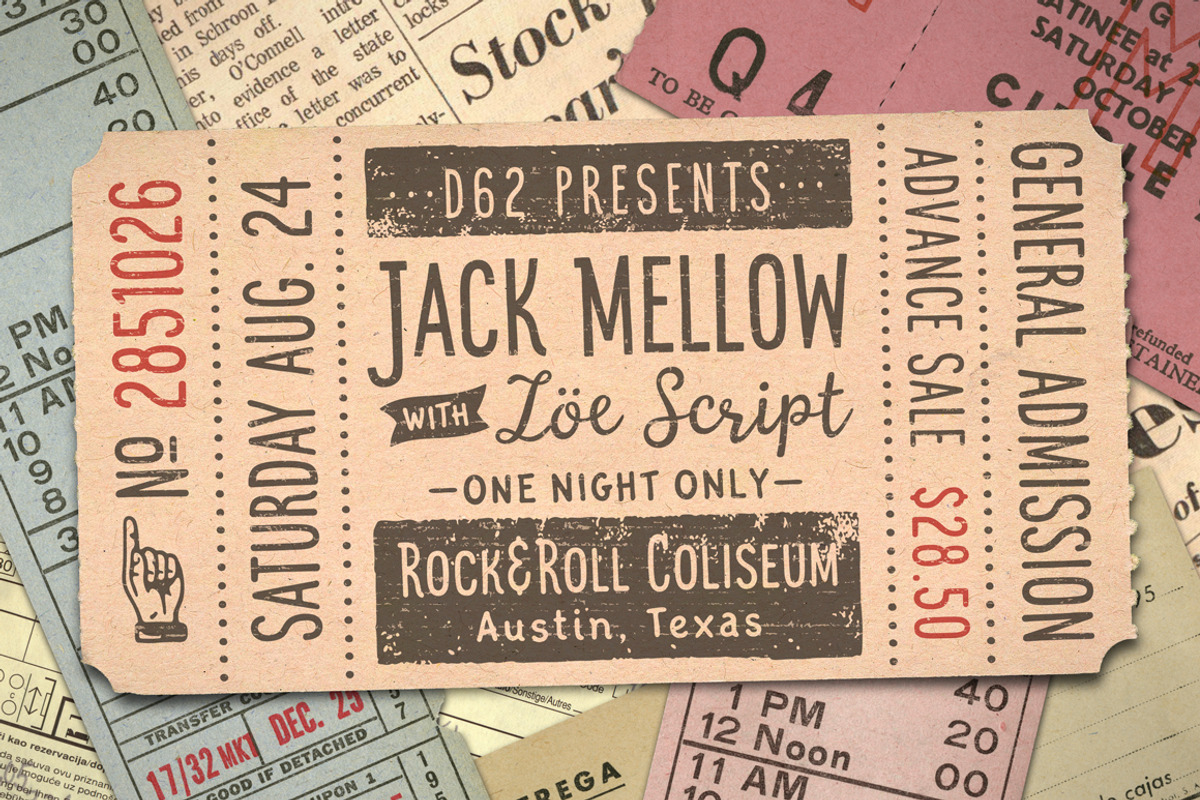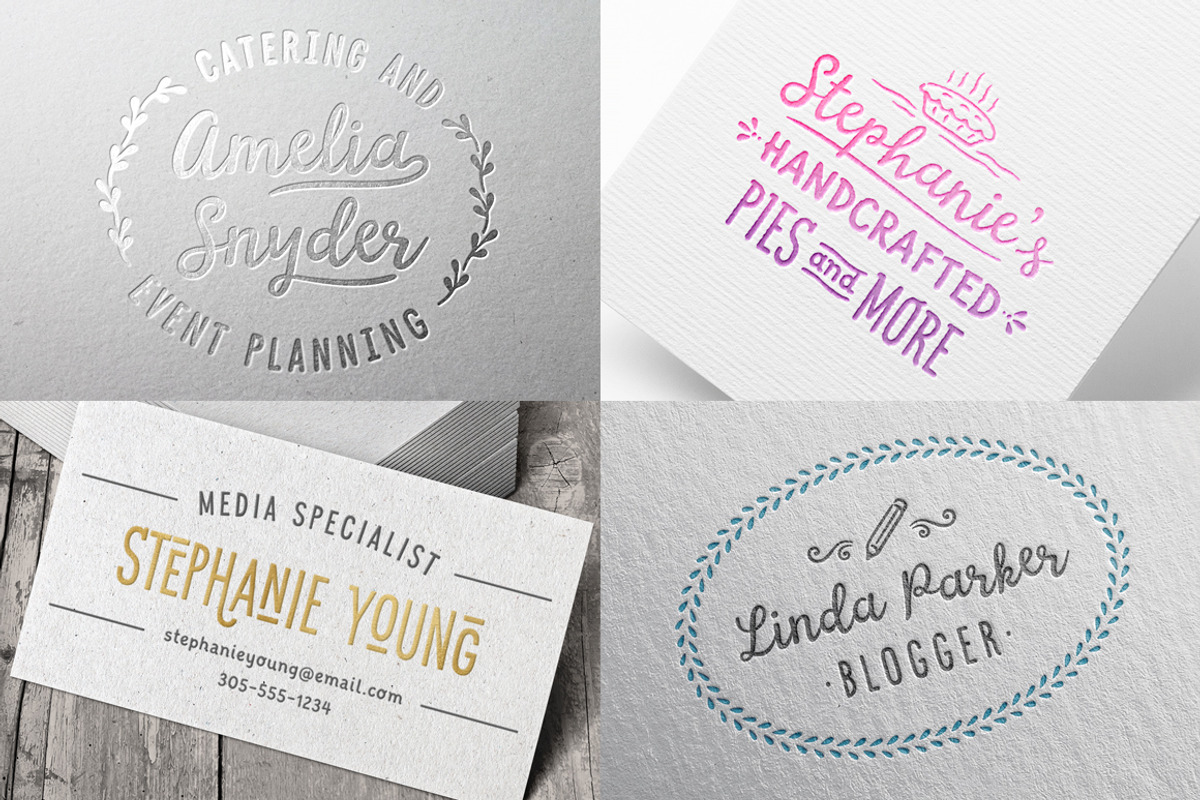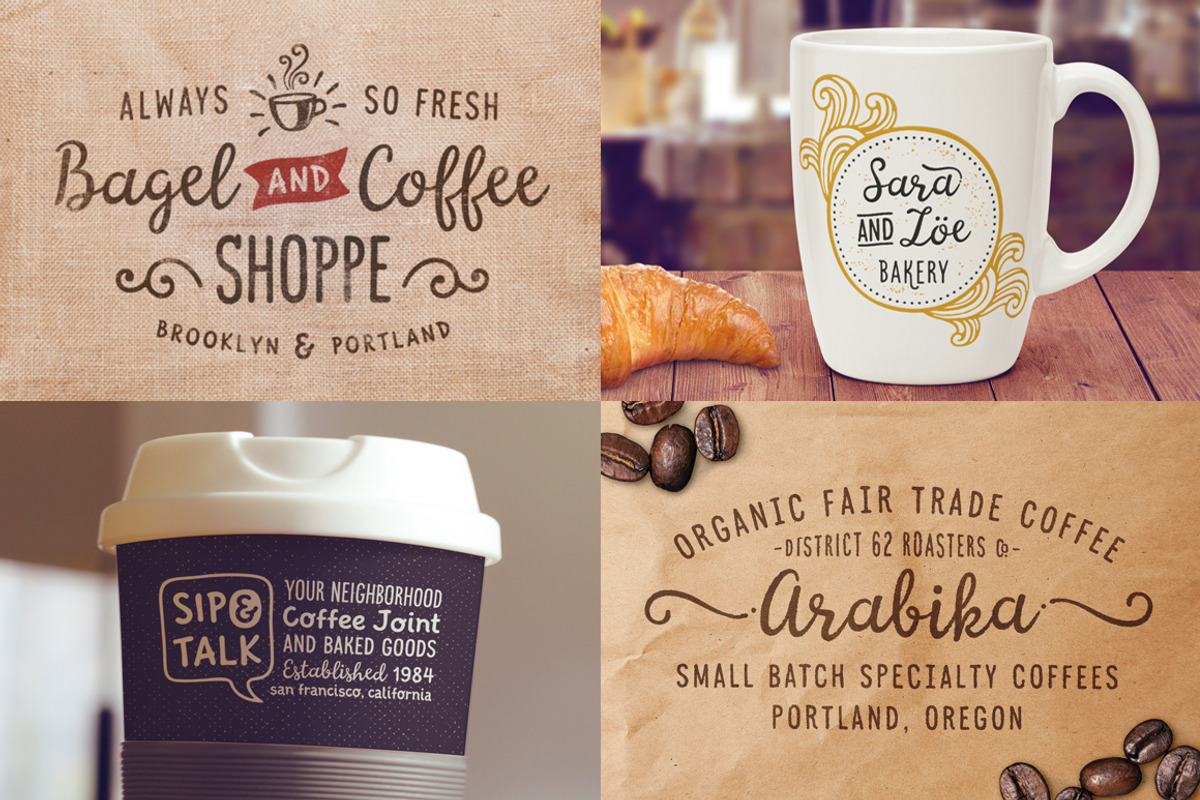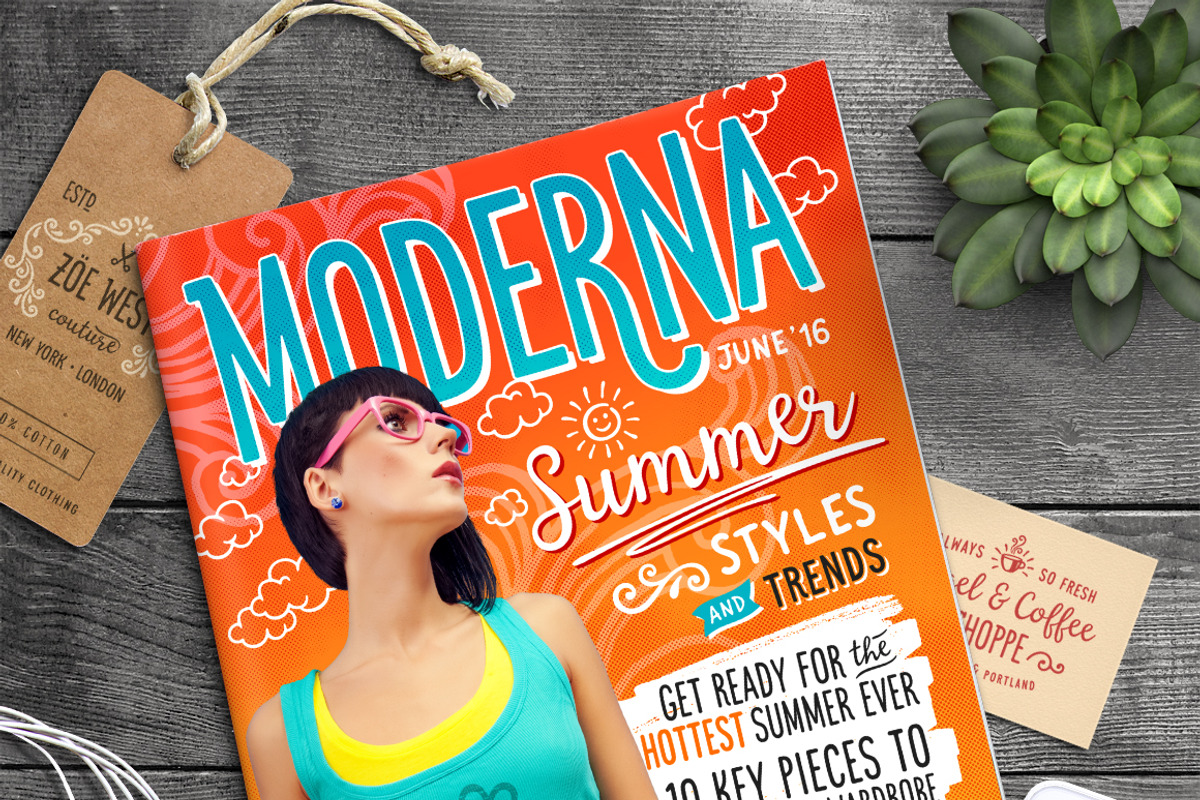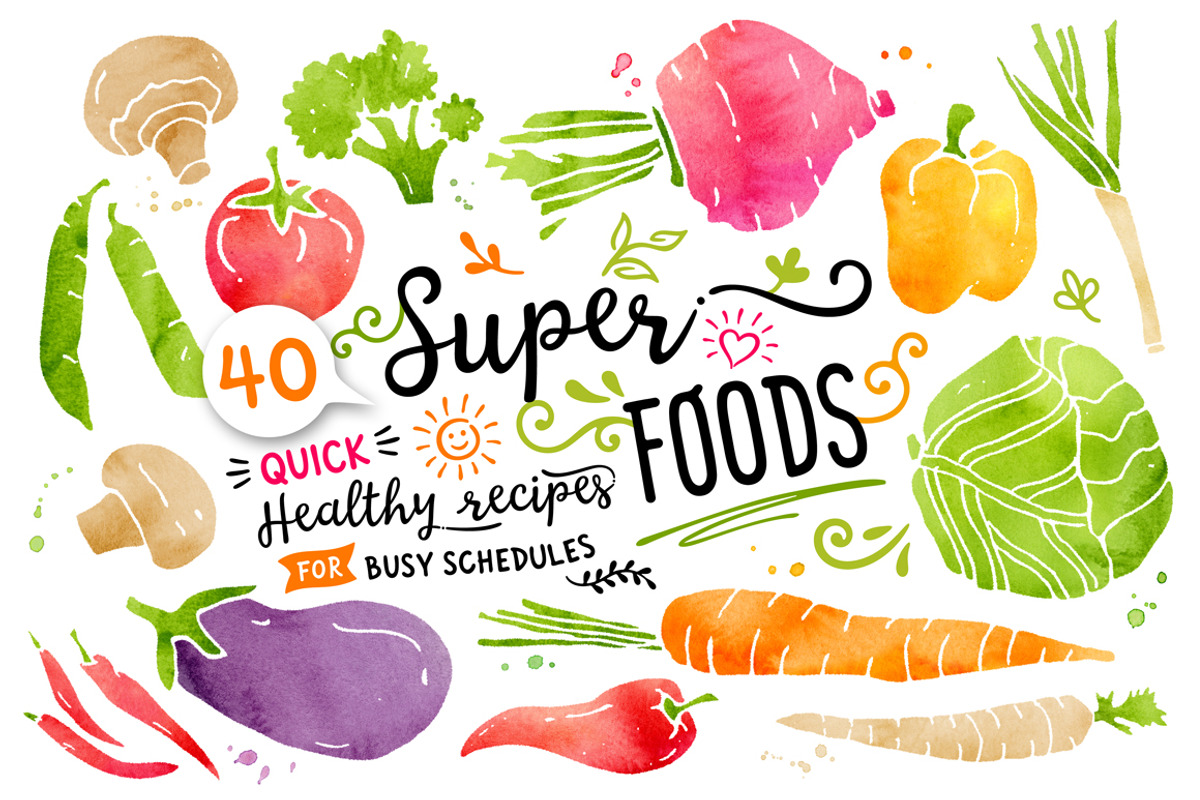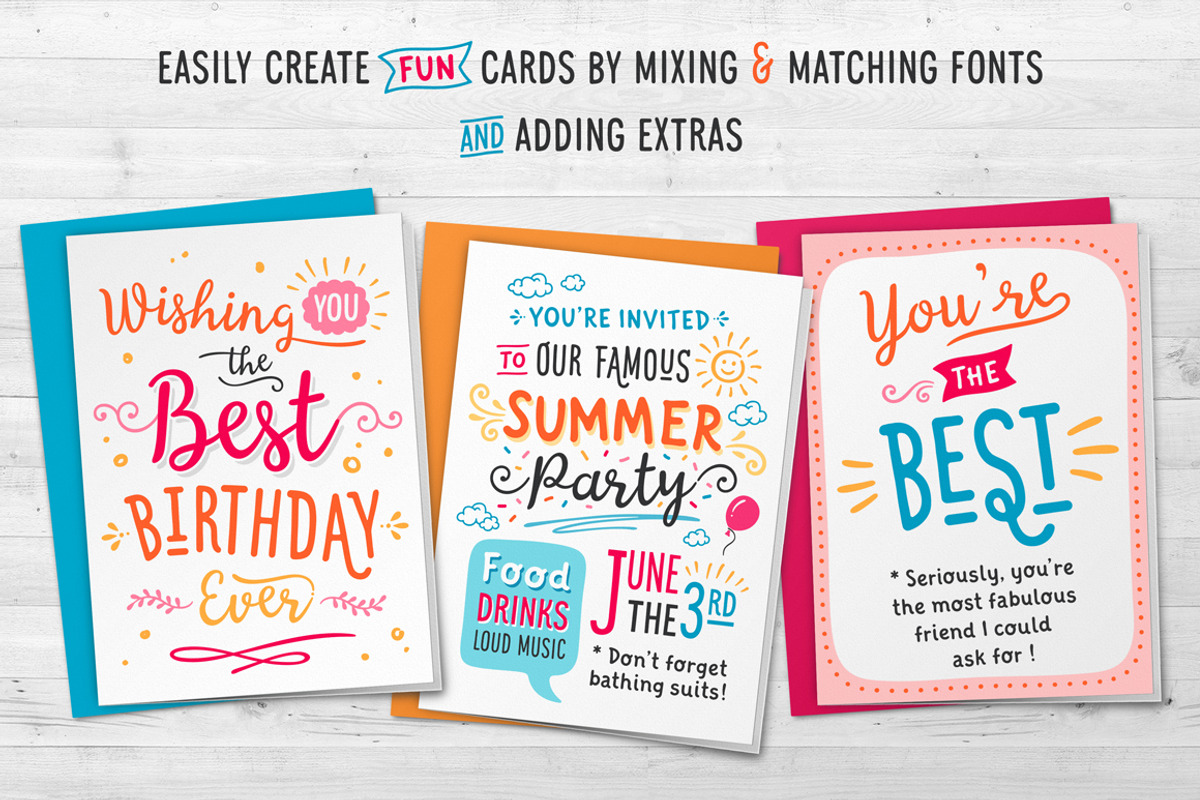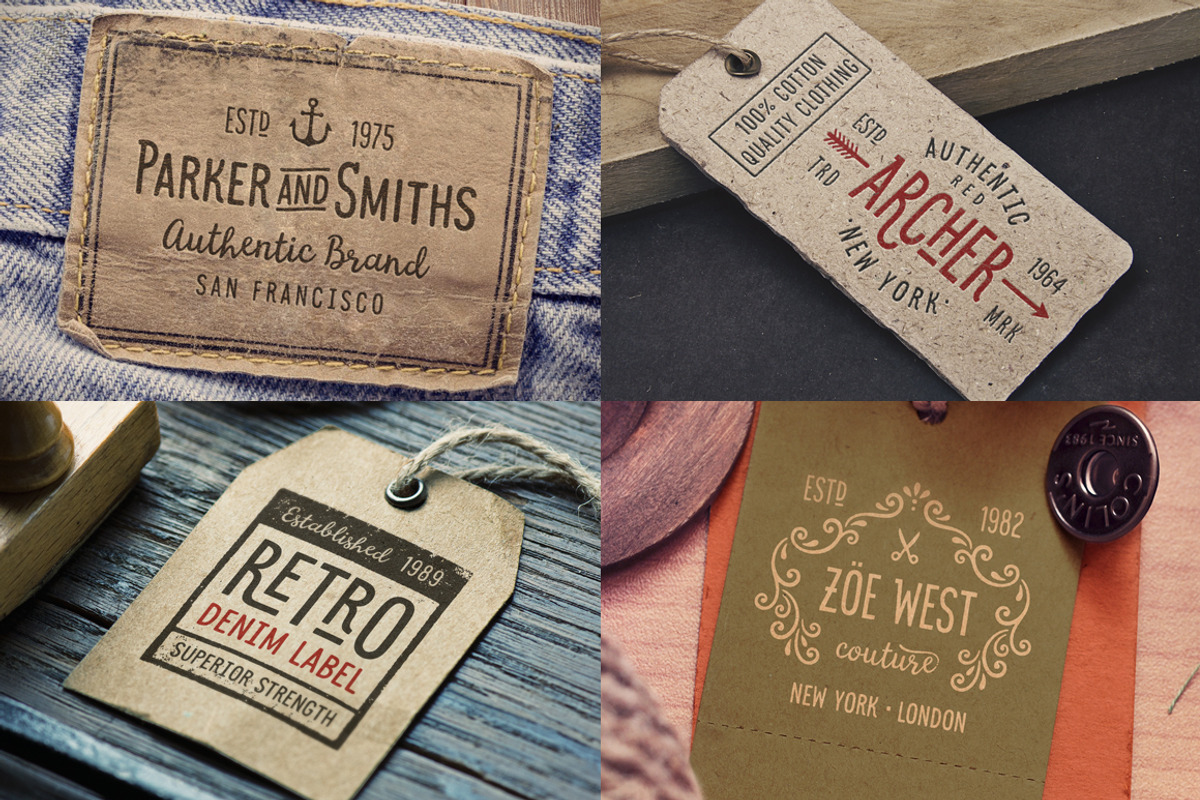
Jack and Zoe Font Collection
Jack and Zoe Font Collection by DISTRICT 62 STUDIO is a font selected for branding, posters, packaging, typography.
- All the fonts have been designed to automatically cycle between characters to give a spontaneous baseline and real hand drawn feel.
Why Jack and Zoe Font Collection is worth a look
Jack and Zoe Font Collection by DISTRICT 62 STUDIO fits naturally into Branding, posters, packaging, typography.